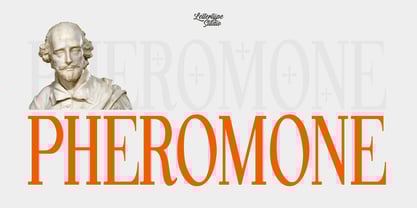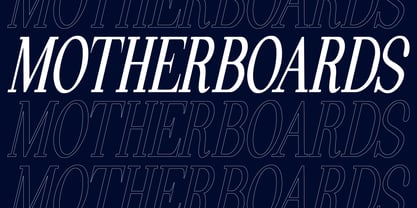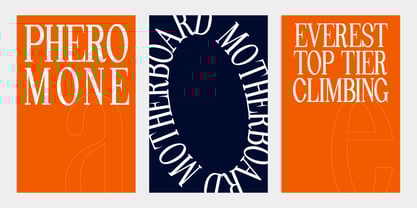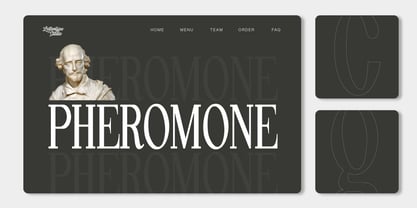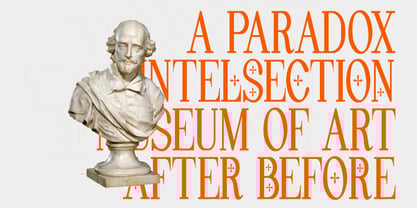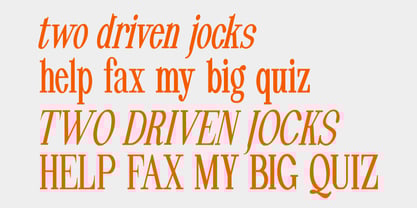
Pheromone
by Lettertype Studio
The Pheromone Font Family was designed by Diki Pradipta Tri Atmojo and published by Lettertype Studio. Pheromone contains 4 styles and family package options. More about this family
Pheromone is a high-contrast serif font with a mixed modern and classic style. Pheromone is modern serif font and is perfect be your headline font. The core is a condensed style, this is why can be perfect to be your headline. Pheromone will be perfect for your headline, logo design, branding, clothing, signage, posters, wedding invitations, cosmetics or fashion and so much more! Pheromone will help your project or brand have a unique vintage, classic look, and stand out.
Designers: Diki Pradipta Tri Atmojo
Foundry: Lettertype Studio